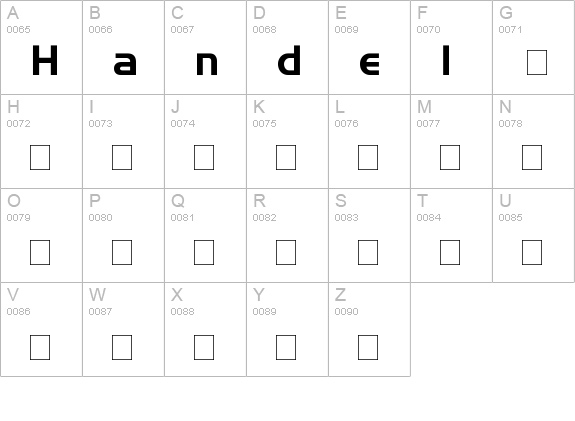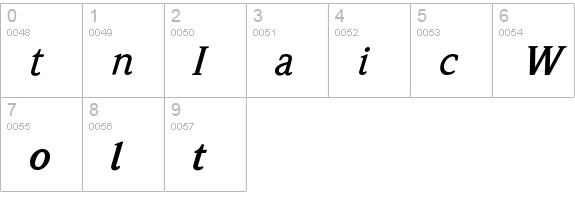
Sample ESF2 Normal is the standard, neutral variant in the Sample typeface family \xE2\x80\x94 well suited to general body text, paragraphs, and standard typographic work.
Sample ESF2 Normal font is a versatile and modern typeface that offers a clean and stylish look. This font is perfect for various design projects, from logos and branding to headlines and body text. With its balanced and legible letterforms, Sample ESF2 Normal font ensures readability and clarity in any size. One of the best things about Sample ESF2 Normal font is that it is freely available to download at FontsMarket.com. This means that you can use this font in your personal and commercial projects without any restrictions. Whether you are a professional designer or a hobbyist, you can take advantage of this font's sleek and elegant design to elevate your work to the next level. The versatility of Sample ESF2 Normal font allows it to be used in a wide range of design applications. Its clean and minimalist aesthetic makes it suitable for modern and contemporary designs, while its subtle details add a touch of sophistication. This font is also highly readable, making it an excellent choice for body text in print and digital media. Sample ESF2 Normal font features a comprehensive character set, including uppercase and lowercase letters, numbers, punctuation marks, and special characters. This ensures that you have all the tools you need to create captivating and engaging designs. Additionally, the font is available in multiple formats, making it compatible with various design software and platforms. Whether you are working on a branding project, a website design, or a poster, Sample ESF2 Normal font is a reliable choice that will never disappoint. Its timeless and versatile design, combined with its availability as a free download at FontsMarket.com, makes it a must-have for any designer's toolkit. So go ahead and explore the endless possibilities that Sample ESF2 Normal font has to offer and let your creativity shine.